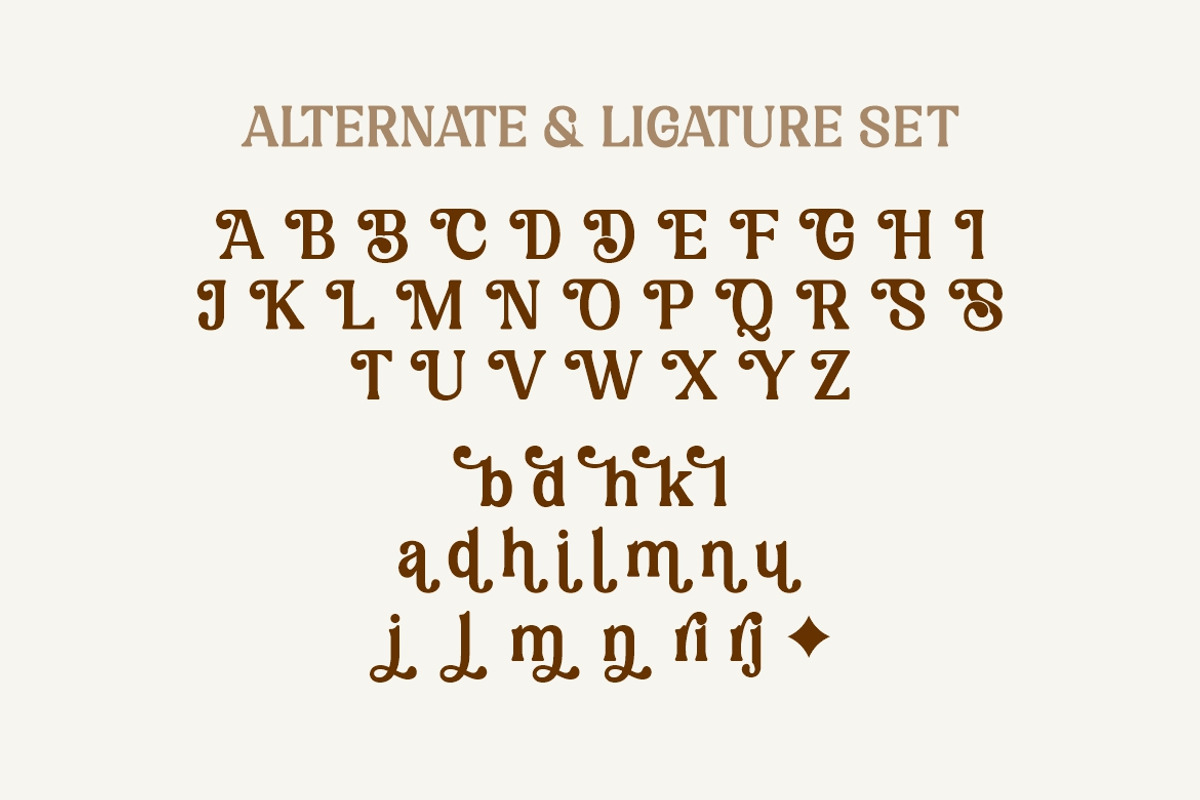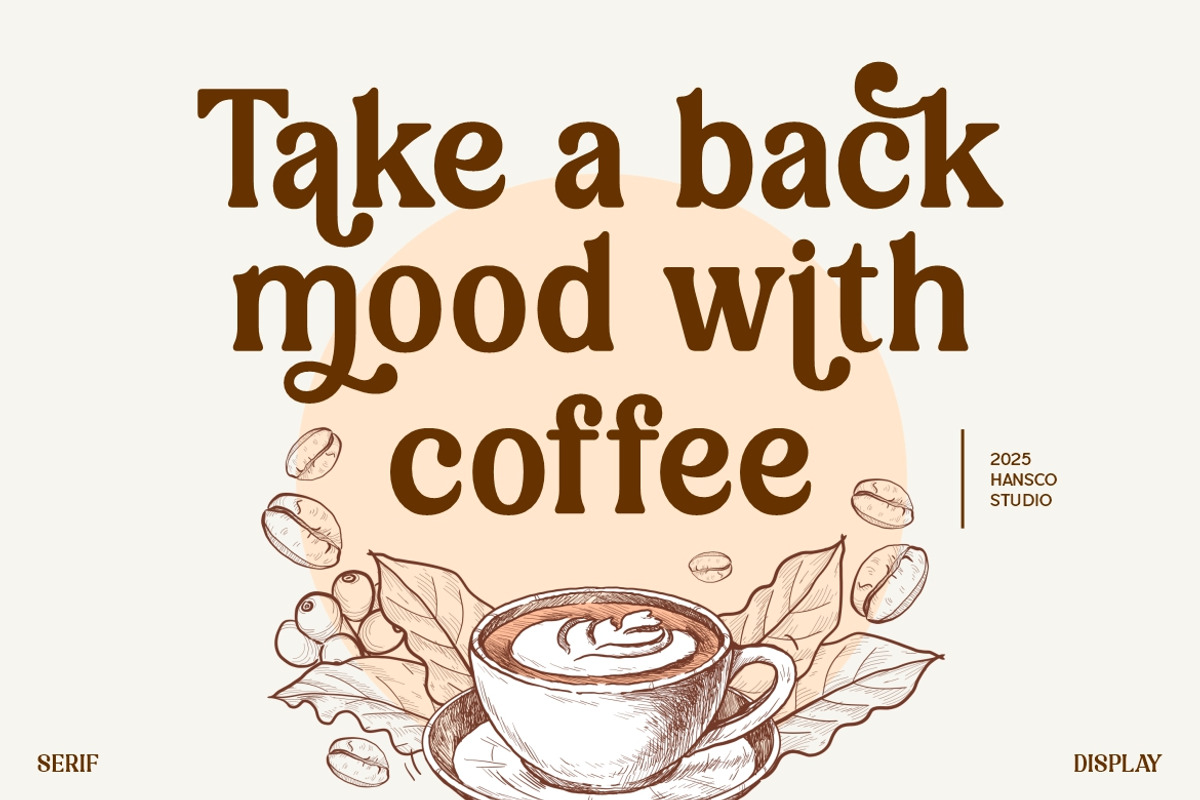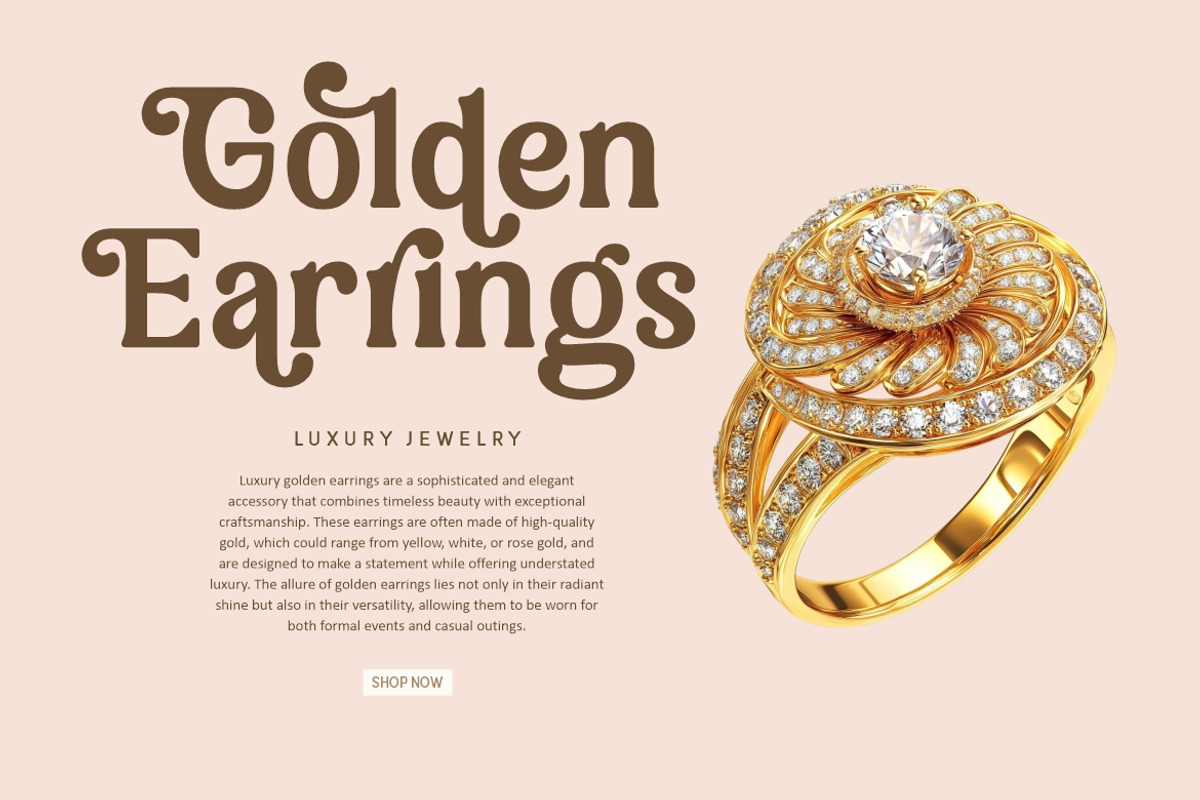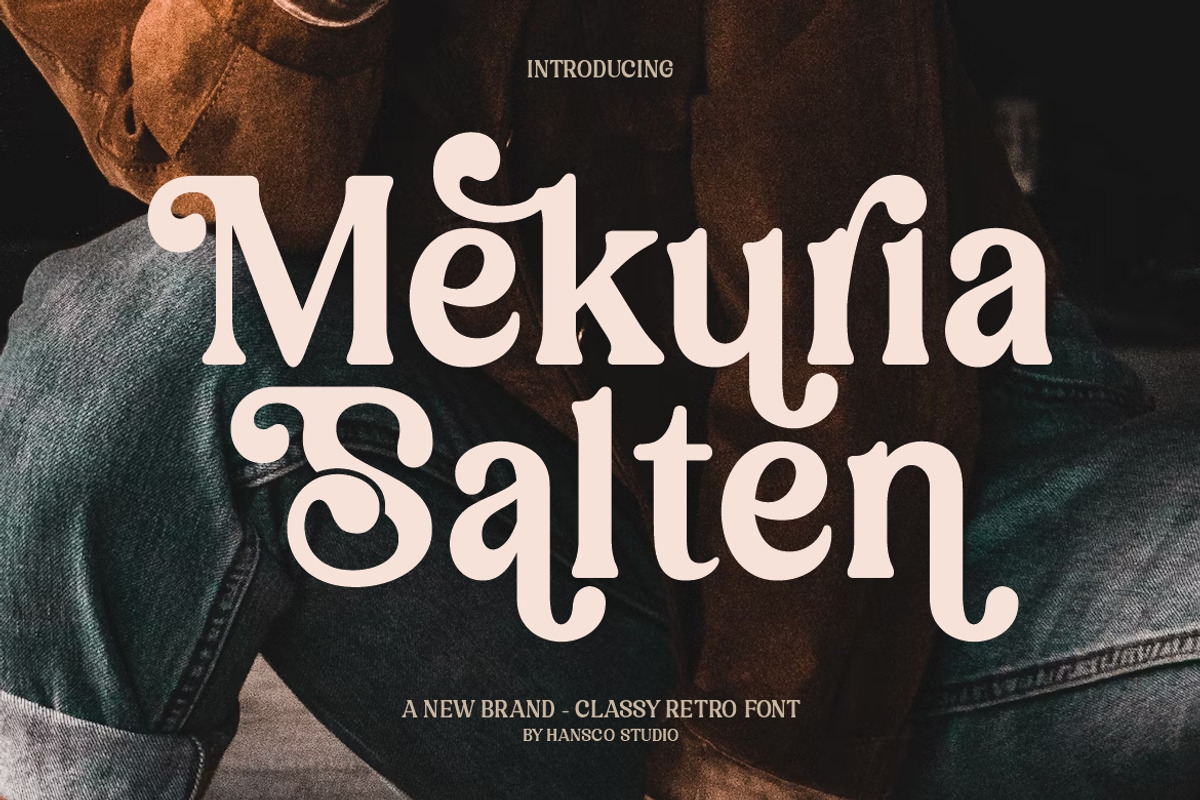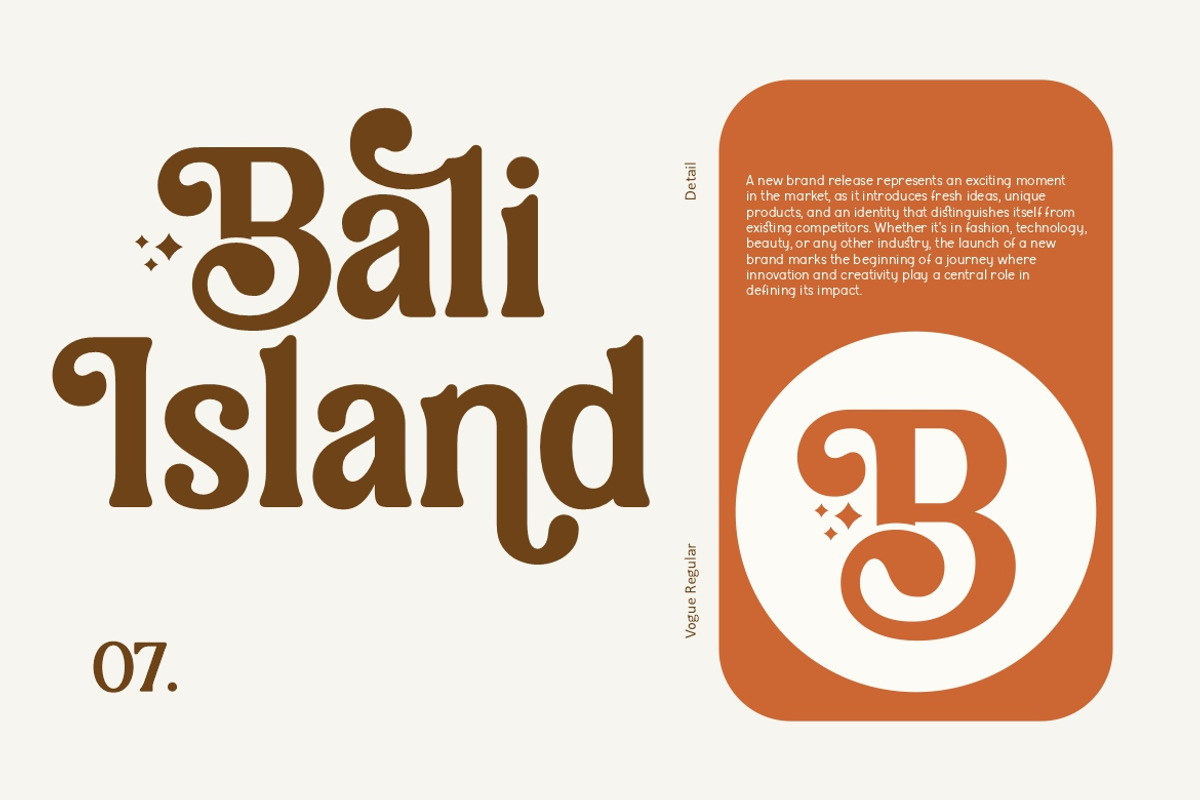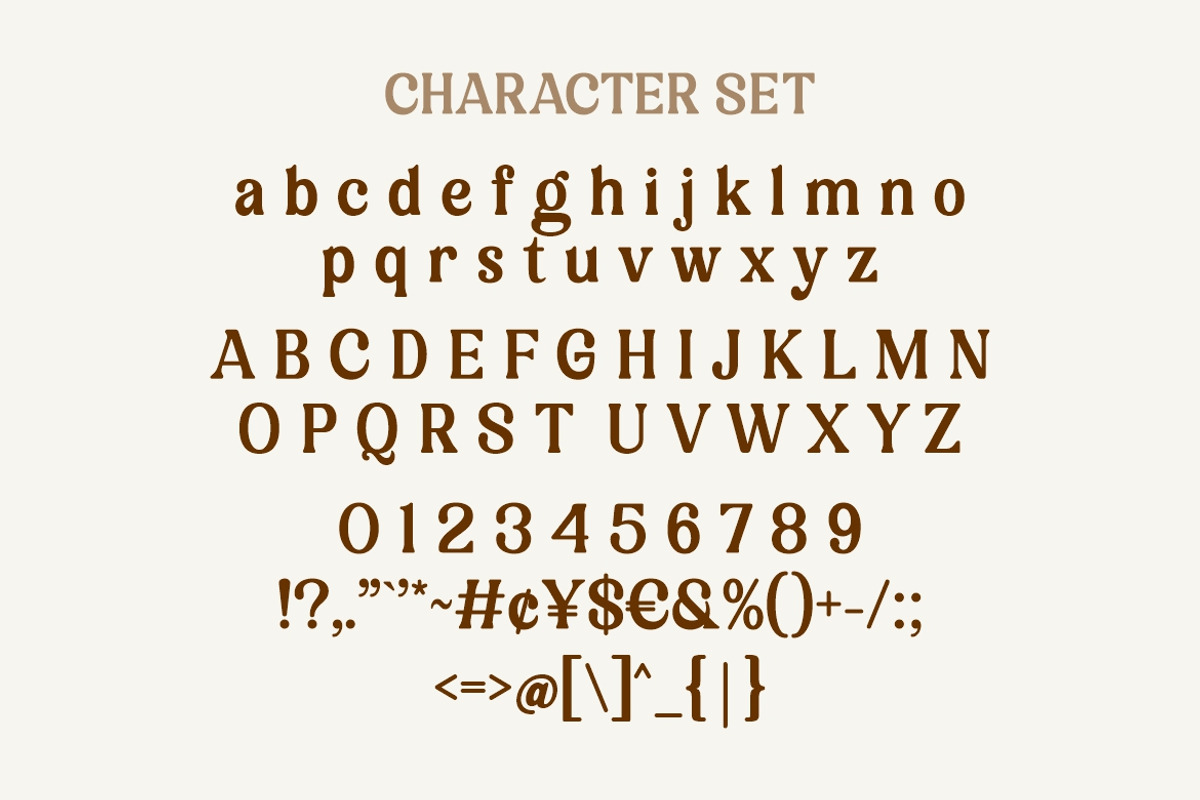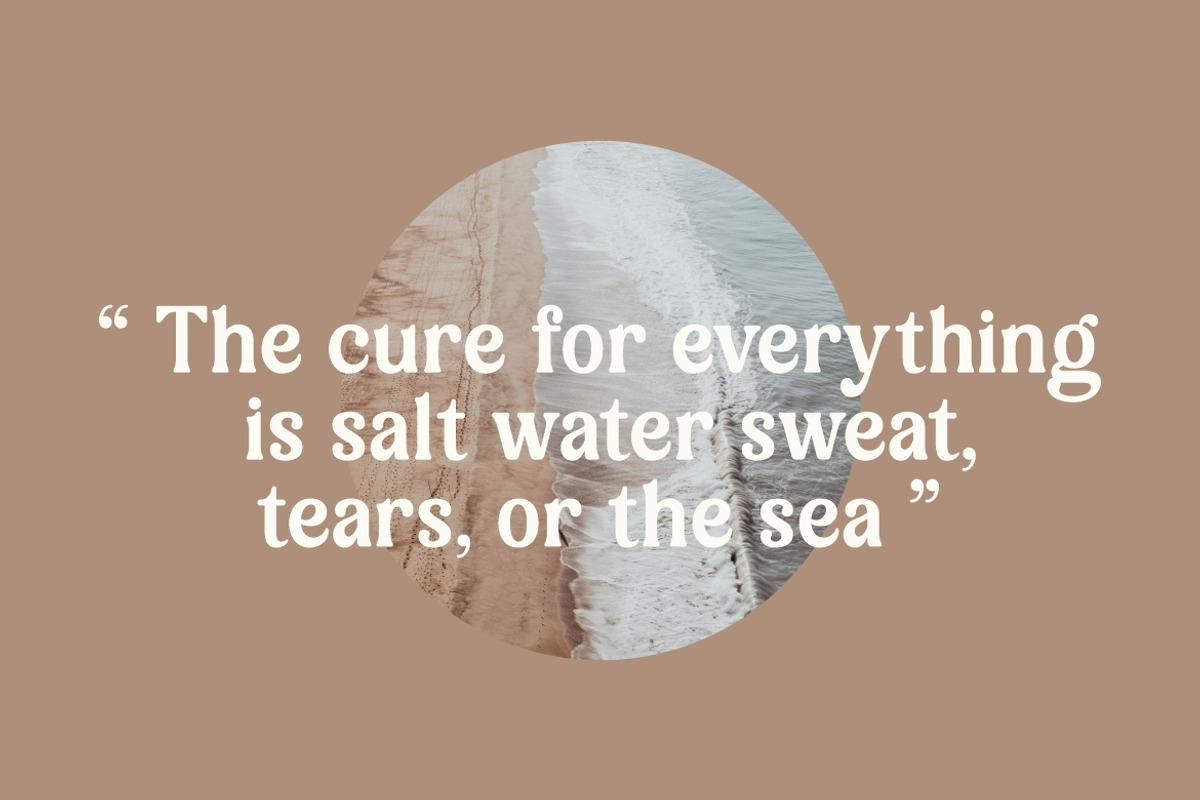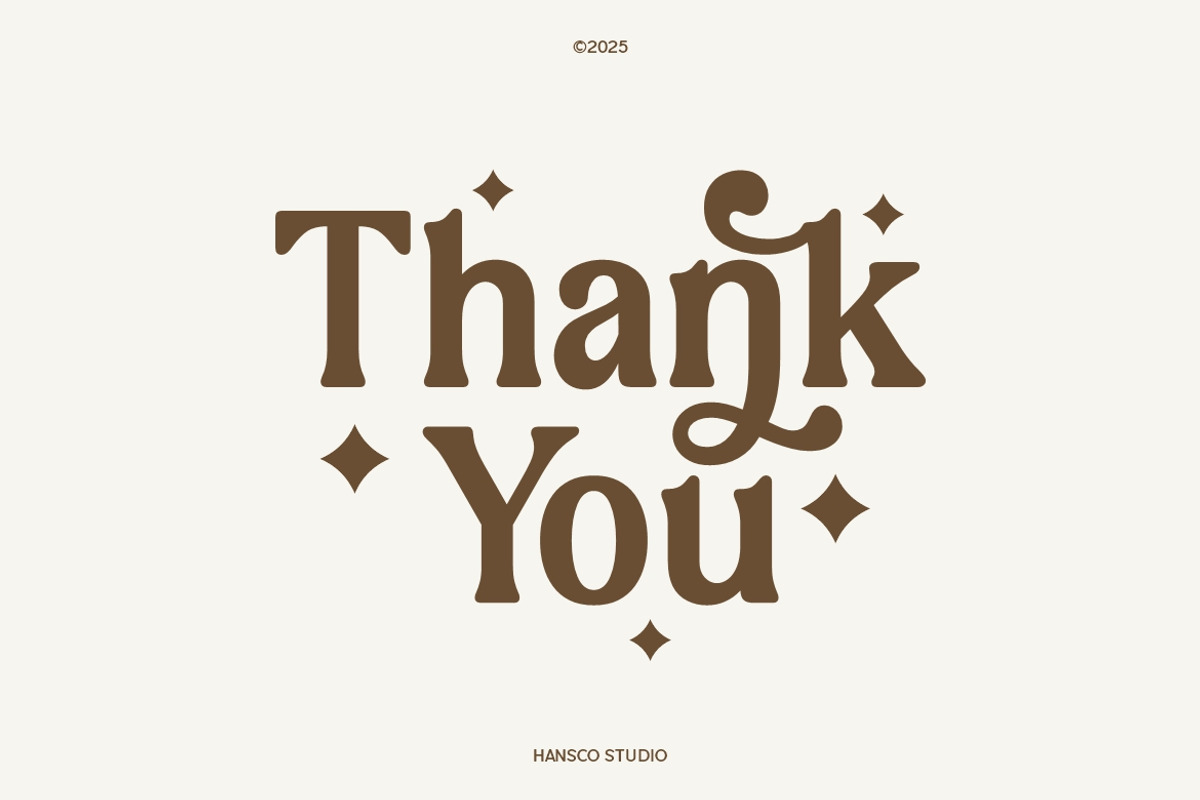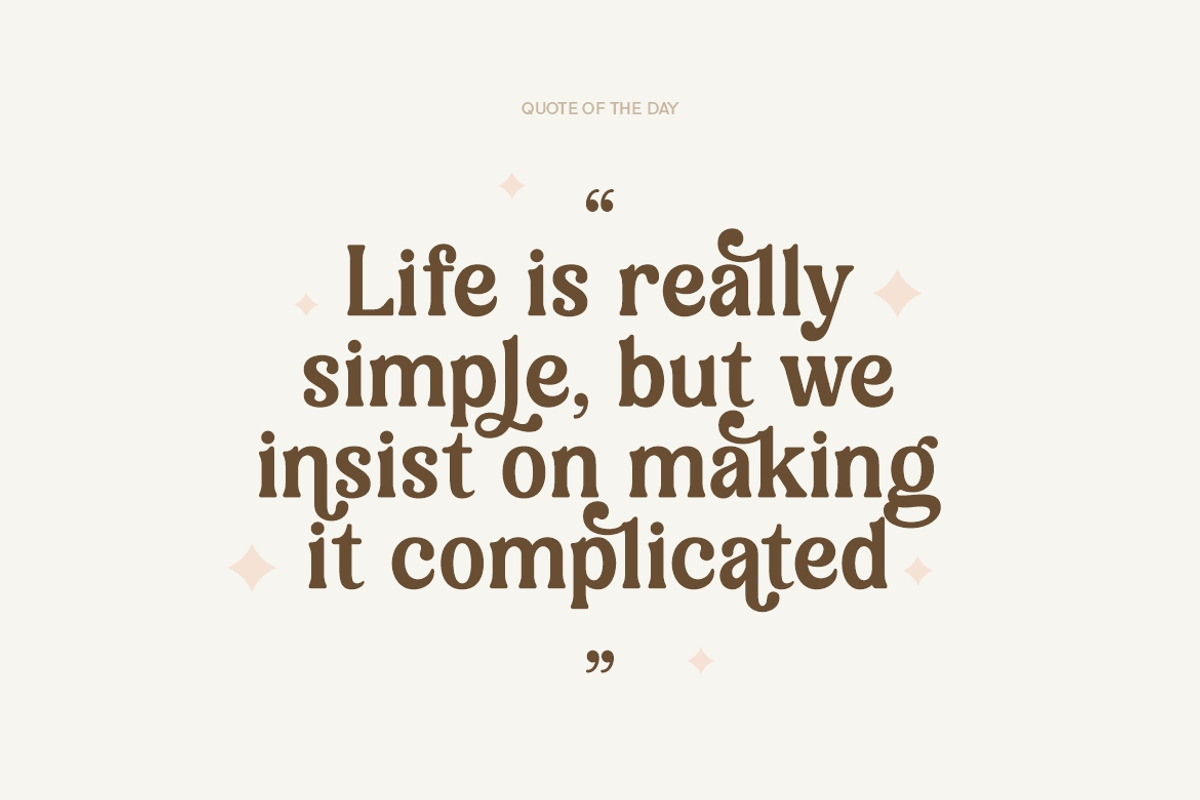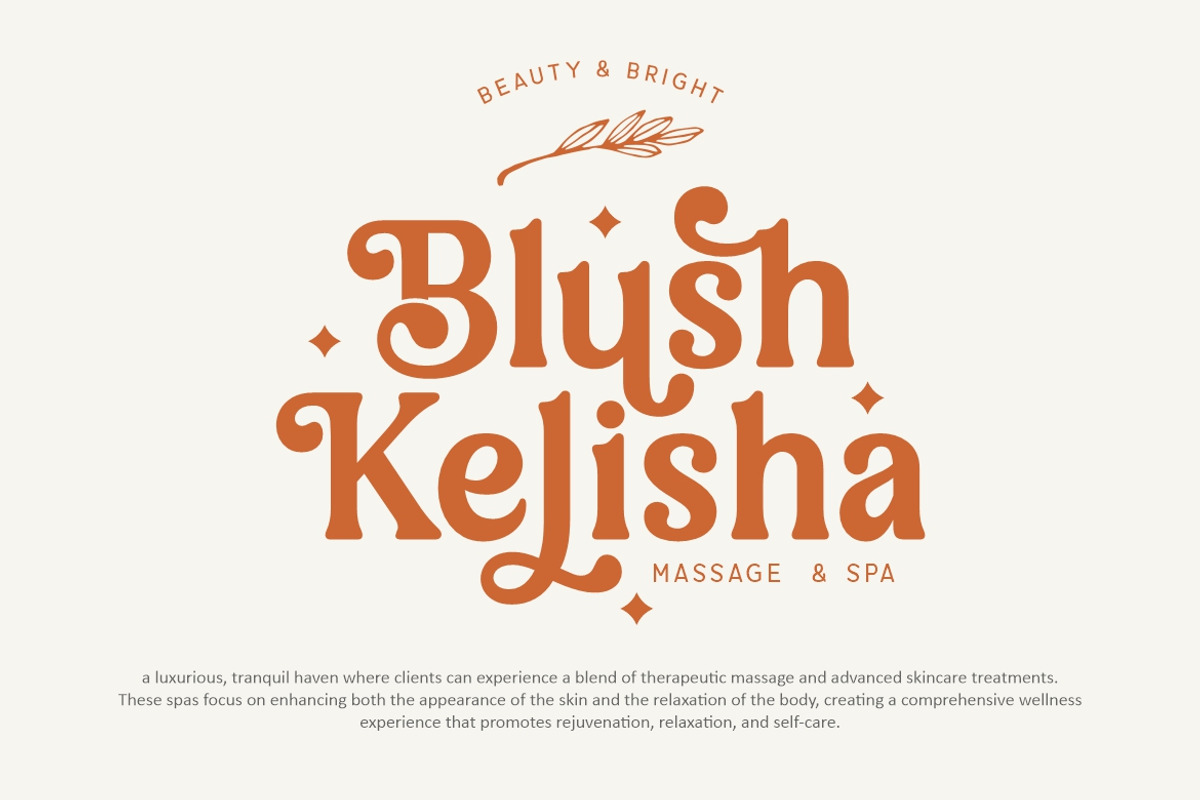
Mekuria Salten Font
Mekuria Salten Font is a simple & clean retro serif font style. You will also get additional alternative swash character fonts that make your design projects amazing. Use this display font to add that special retro vintage touch to any design idea you can think of!. Equipped with all complete characters ranging from uppercase letters, lowercase letters, numbers, punctuation marks and multi-lingual support, this font is ready to be used in any project. Very suitable for logotype, Stickers, Packaging design, Cricut Project, headlines, brand identity, t shirt or apparel industry, posters, magazines, books, YouTube, Instagram, websites, or any of your creative design projects.